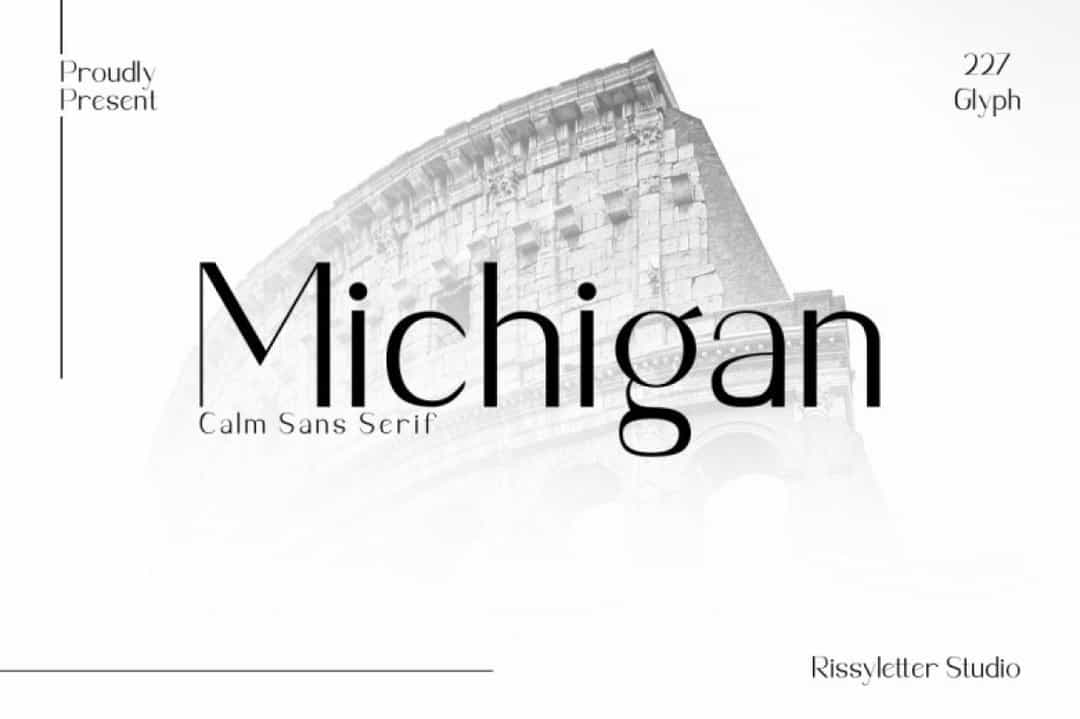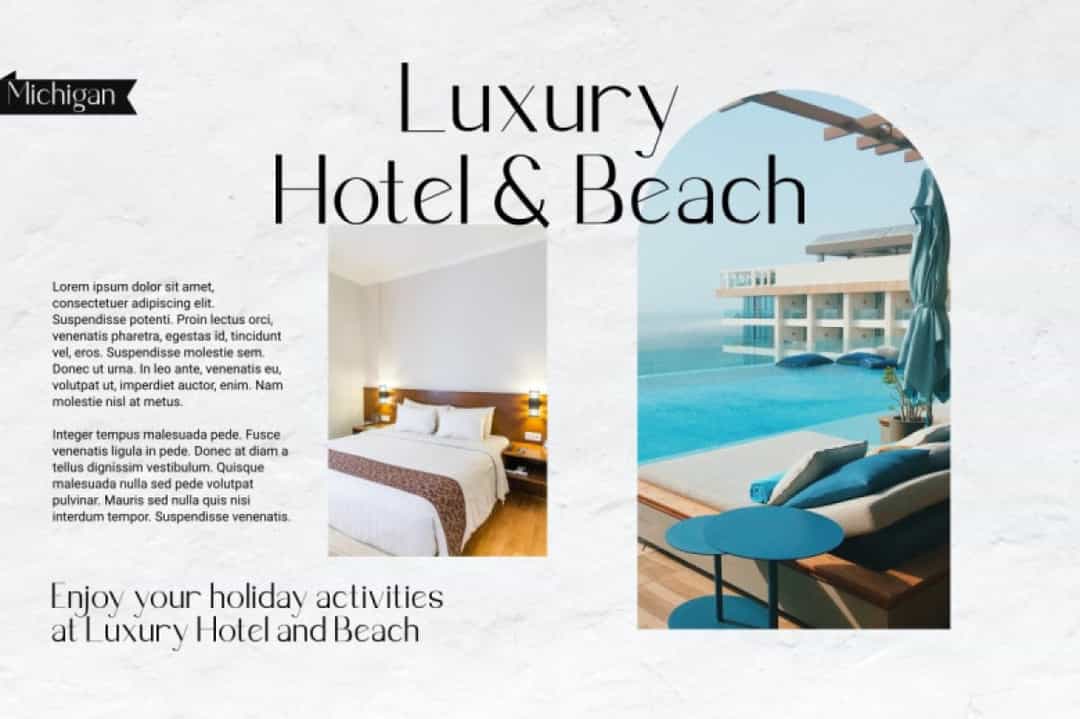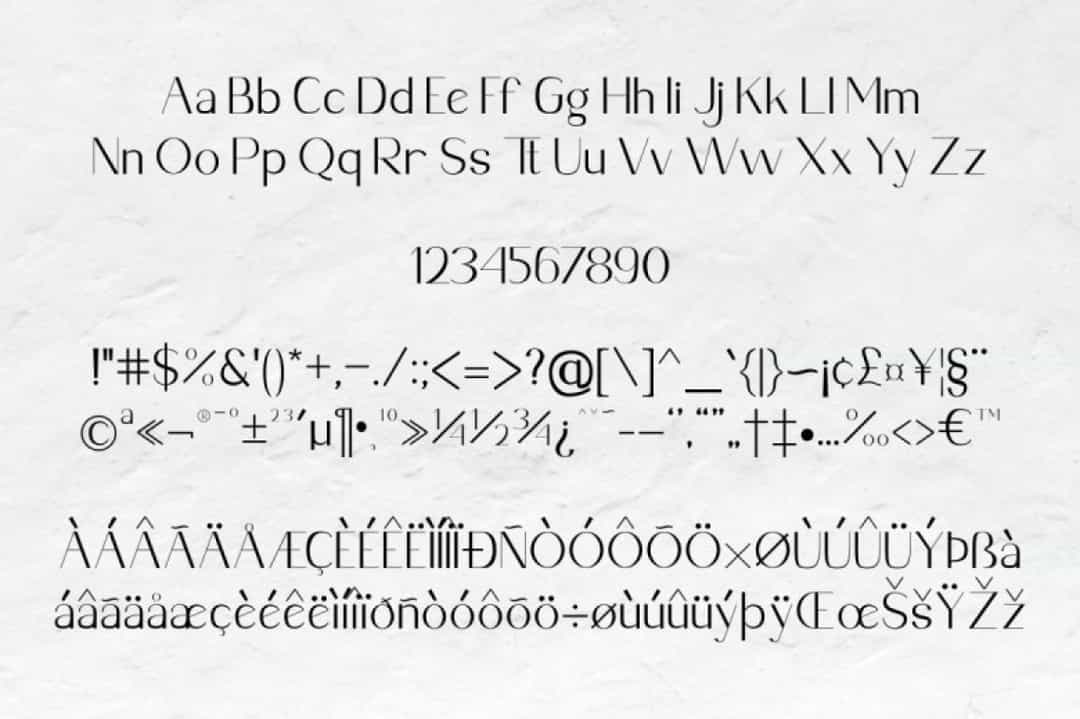
Michigan can be described as an elegant yet simple sans serif font that easily complements many designs – ideal for use in your creative process! Integrate this font into your projects to see the difference it makes!